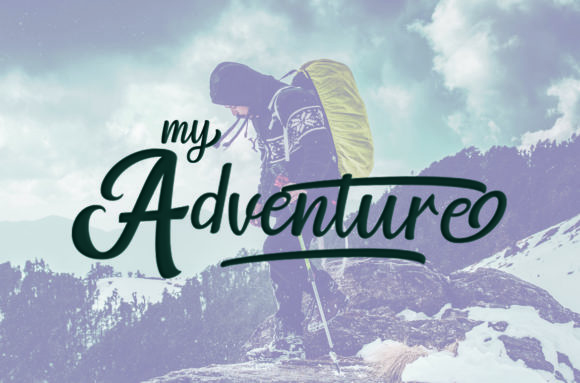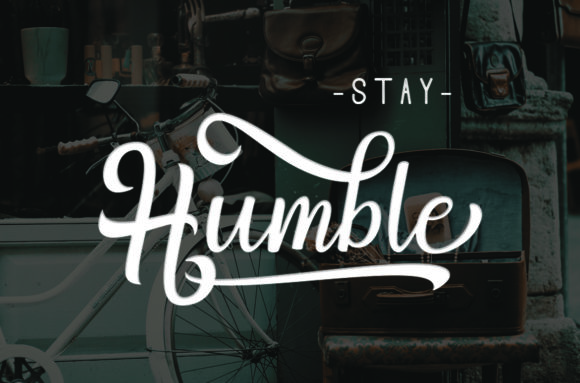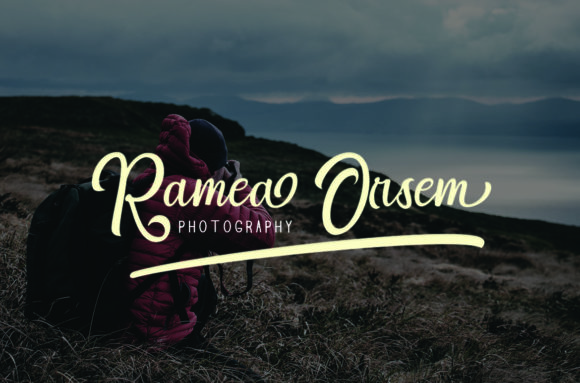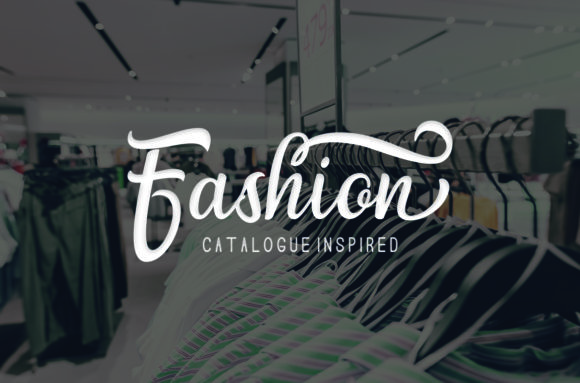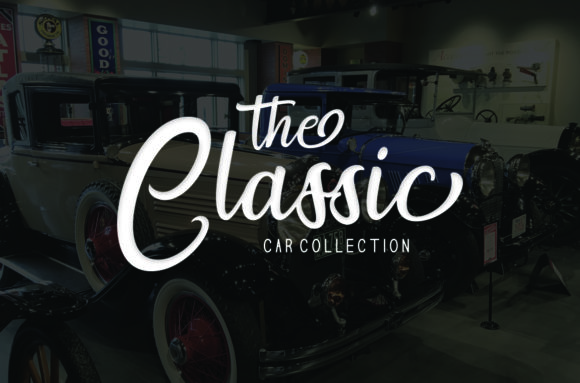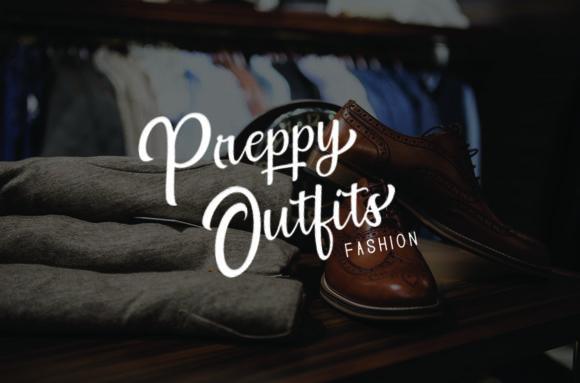
Introduction to Hansel Font
Remember that moment when you stumbled upon the perfect font for your creative project? The one that instantly elevates your design from ordinary to extraordinary? For designers, finding the right font can be a game-changer. It’s the difference between a decent-looking business card and a truly show-stopping one.
Enter Hansel Font, a fresh and modern script font that’s about to become your new favorite design resource. With its handmade calligraphy style and decorative characters, Hansel Font is perfect for adding a touch of elegance to your greeting cards, branding materials, and posters. And with its transparent background, you can easily place it over any image or design element.
As a PUA encoded font, Hansel Font is incredibly easy to use, allowing you to access all of its glyphs and swashes with ease. Whether you’re a seasoned designer or just starting out, Hansel Font is a high-quality addition to your design toolkit that’s sure to inspire your next creative project.
Key Features of Hansel Font
- High-quality font with a unique, whimsical design making it a great resource for creative projects.
- Transparent background, enabling users to easily layer the font over other design elements without any unwanted background imagery.
- Designed to be highly legible at various sizes and resolutions, making it perfect for use in digital and print applications.
- Includes a full character set, allowing for use in a variety of languages and applications.
Honest Review: Hansel Font
I recently came across the Hansel Font, and I was excited to give it a try. As a designer, I’m always on the lookout for high-quality design resources that can elevate my creative projects. The Hansel Font did not disappoint.
Some limitations: ⚠️ The Hansel Font is only available in a limited range of weights and styles. This may be a drawback for designers who need a wide range of font options for their project.
Overall, I’m impressed with the Hansel Font. It’s a great design resource for anyone looking for a high-quality, modern font. I would definitely recommend it to fellow designers.
- Clean and modern design
Hansel Font
Tips for Getting the Most Out of Hansel Font
Use Hansel Font with a transparent background to create a clean and modern design. Experiment with different font sizes and colors to add depth and interest to your design. Use Hansel Font in combination with other design elements, such as images and graphics, to create a cohesive and engaging design.
Hansel Font is ideal for creative projects, such as graphic design, web design, and digital art. It’s also great for business owners who want to create professional-looking documents and presentations. With its high-quality design and transparent background, Hansel Font is a valuable design resource that can help take your creative project to the next level.
Yes, the Hansel Font has a transparent background, making it ideal for use in designs with complex backgrounds or overlays. You can also adjust the font’s opacity in your design application to achieve the desired effect.